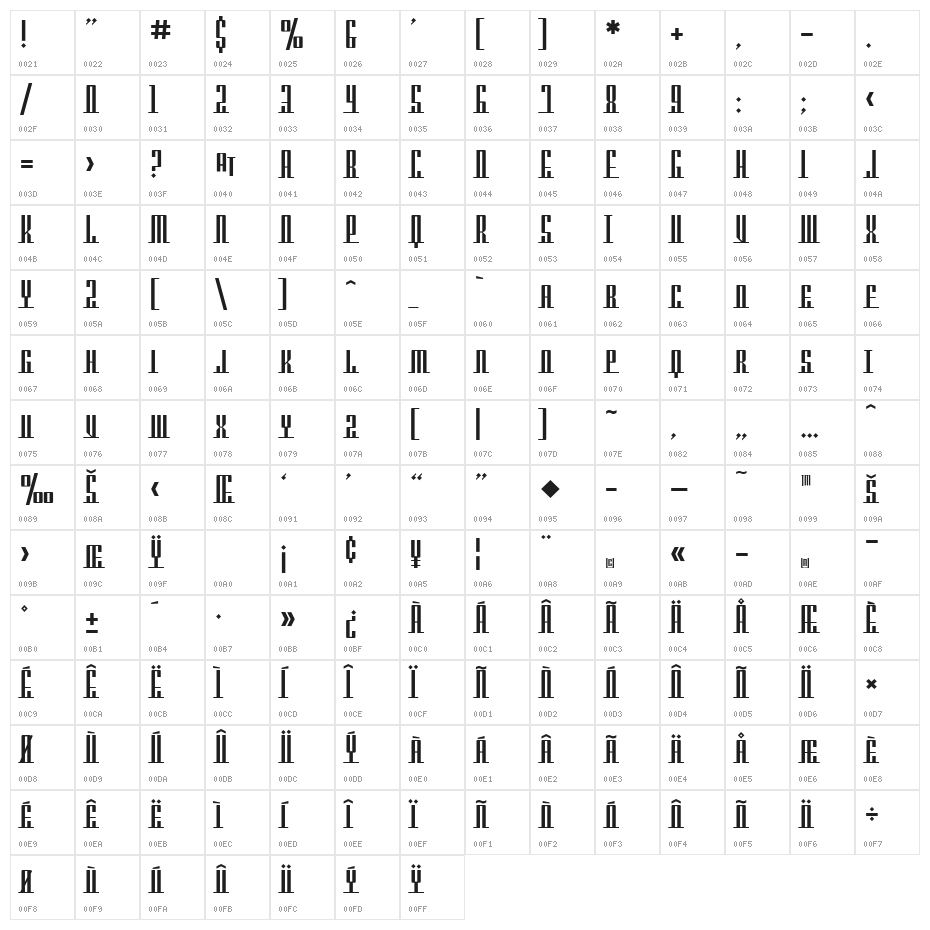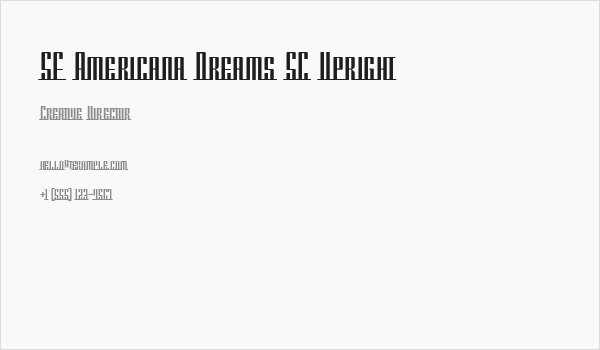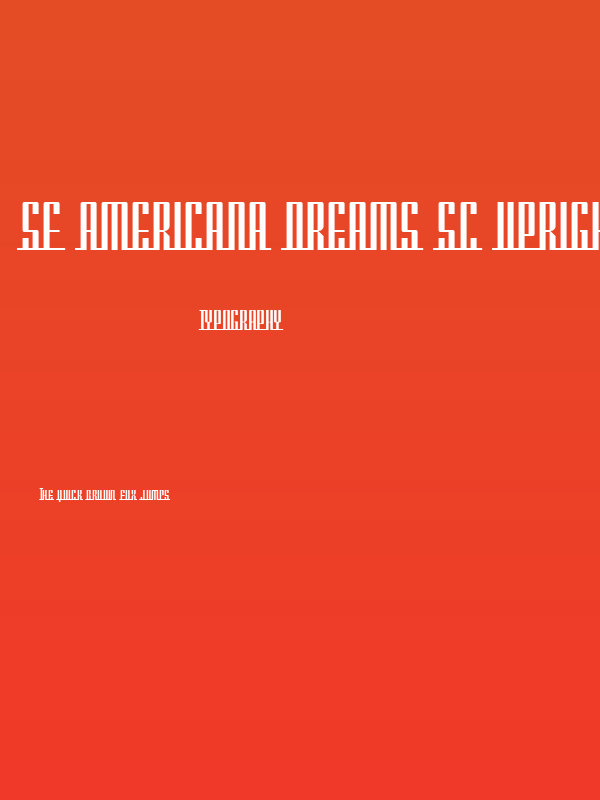
SF Americana Dreams SC Upright Font
SF Americana Dreams SC Upright Description
This font features a bold and striking design with a strong vertical emphasis. The characters are tall and narrow, creating a condensed appearance that is both modern and eye-catching. The uppercase letters have a uniform height, while the lowercase letters maintain a similar style, enhancing the overall cohesiveness of the font. The numerals are equally bold, ensuring they stand out in any context. Special characters are designed with the same attention to detail, making them suitable for various design needs. The font's geometric structure and clean lines make it ideal for projects that require a contemporary and impactful look.
| Proposed Projects | Ideal for posters, headlines, branding, and any project requiring a strong visual impact. |